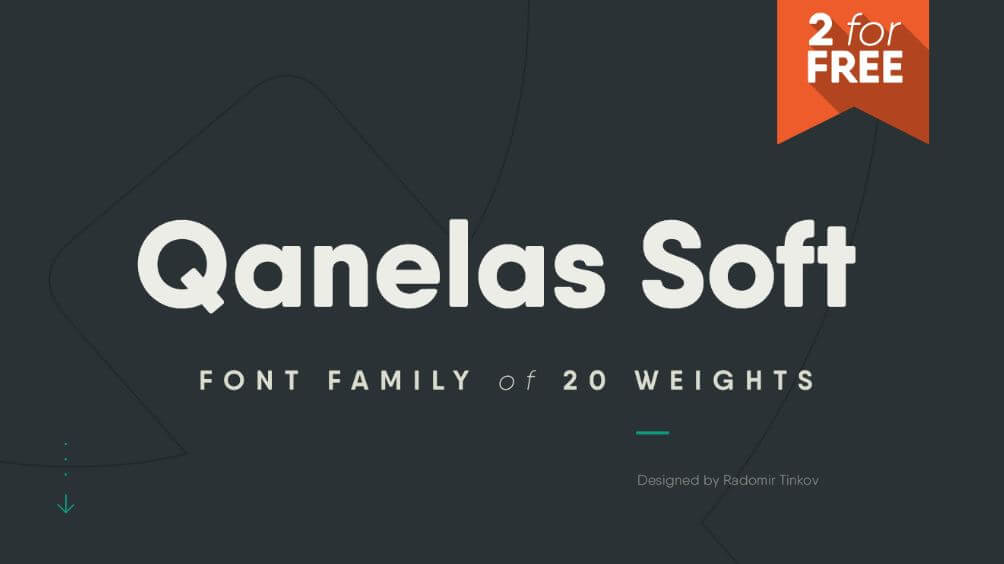
Qanelas Soft Font is a modern sans-serif font with a geometric twist, a more approachable version of the regular qanelas font family. It resembles benton sans that offers 20 weights, 10 uprights, and corresponding italics. Discover a font that combines style and simplicity seamlessly. Start creating with Qanelas Soft Font now!
This show typeface includes 5 styles and each kind has possessed certain appearance. Due to the fantastic aspects and fine attractive looks, this font becomes the priority of any dressmaker to use it at least one time in their profession.